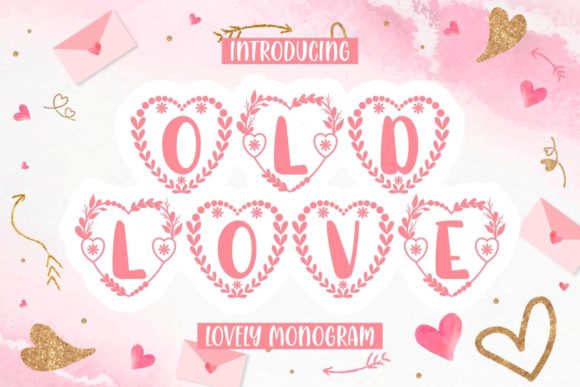
Embark on a typographic journey with Old Love Font, a decorative masterpiece designed to infuse your creative endeavors with a touch of elegance and romance. This exquisite font family, lovingly crafted by Rifki (7ntypes), is a celebration of timeless beauty, echoing the allure of classic vintage signage and the charm of handwritten love letters.
Step into a world where words dance with grace and sophistication, where every letter is a stroke of art. Old Love Font is a versatile chameleon, effortlessly adapting to a myriad of design projects, from captivating logos and alluring branding to whimsical invitations and heartfelt greeting cards. Its intricate swashes and delicate flourishes add an air of exclusivity, transforming ordinary text into enchanting works of art.
Elevate your beauty salon's visual identity with Old Love Font, creating a welcoming ambiance that exudes warmth and elegance. This font is a magnet for aesthetics, drawing clients in with its alluring charm. Let your salon's signage, brochures, and social media posts radiate sophistication, setting you apart from the competition and leaving a lasting impression on your clientele.
With Old Love Font, you possess the power to transform the mundane into the extraordinary. Unleash your creativity and let your imagination soar, knowing that this font will faithfully translate your vision into reality. Every project you undertake will be infused with a touch of magic, enchanting your audience and leaving them captivated by your artistic prowess.